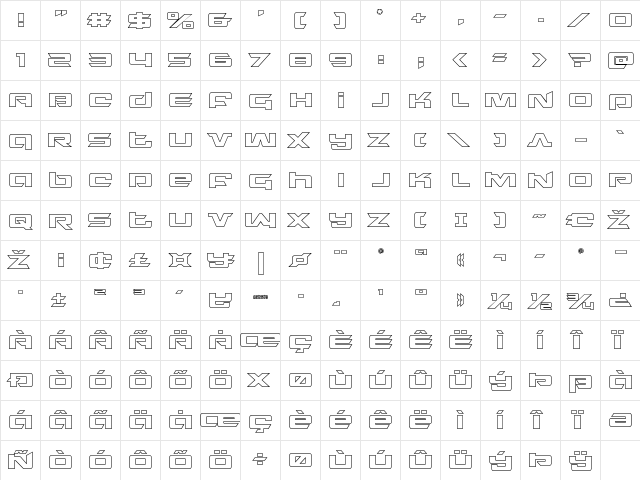
Northstar Outline Regular
Design Context for Northstar Outline Typeface
Northstar Outline brings ornamental detail and strong personality to headlines and identities, where visual impact matters more than quiet functionality.
Font Pairing: Pair with a clean neutral sans-serif for body copy to let Northstar Outline's character lead without overwhelming the composition.
Pro Tip: Treat Northstar Outline as the centrepiece of your typographic hierarchy. One strong heading set in a decorative face can carry an entire layout.